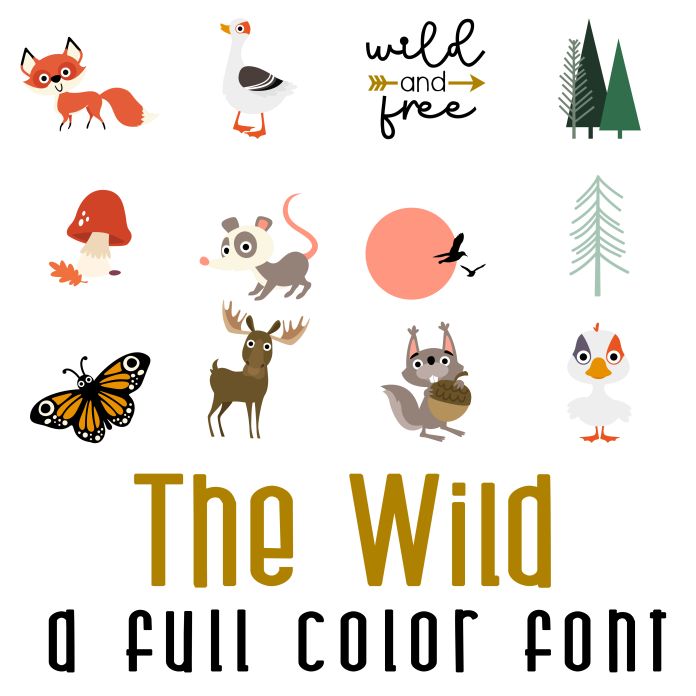
This fun full color font features 26 forest animals and elements perfect for cards, crafts, gifts, parties, planner stickers, classrooms, scrap book pages and more!